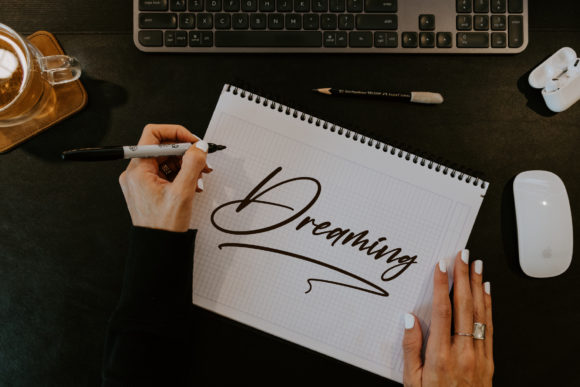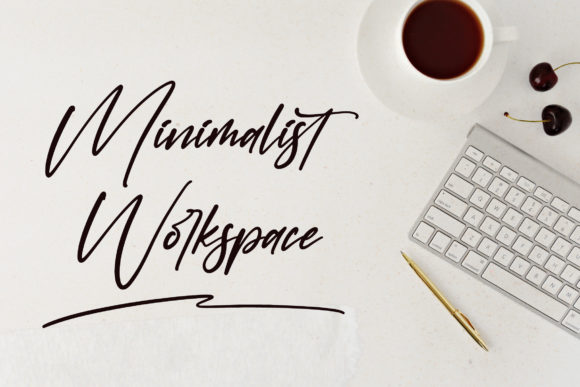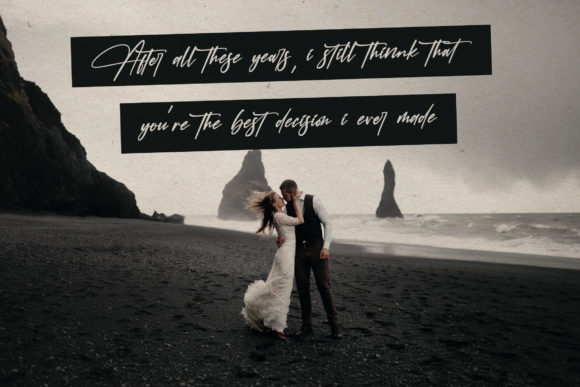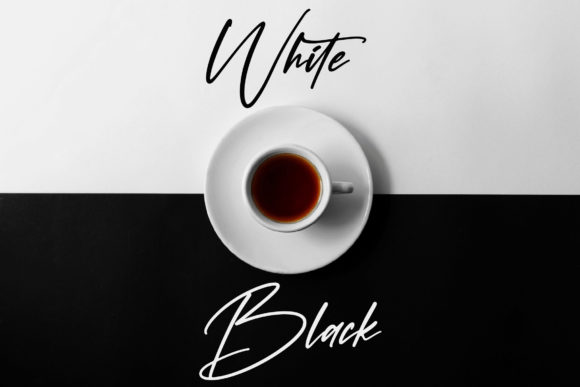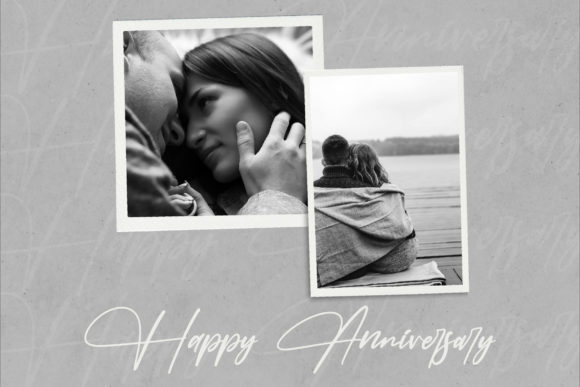
Introducing Falernola Font: Elevate Your Design with Luxury and Elegance
Are you looking for a font that exudes luxury, sophistication, and elegance? Look no further than Falernola Font. This stunning script font is designed to add a touch of high-end style to any design project, making it perfect for crafters, designers, and anyone looking to create something truly special.
What is Falernola Font?
Falernola Font is a thin lettered and graceful script font that is sure to impress. Its delicate lines and curves create a sense of movement and fluidity, making it perfect for a wide range of design applications, from branding and packaging to wedding invitations and digital marketing materials.
Key Features of Falernola Font
- Thin Lettering: Falernola Font features thin, elegant lettering that is perfect for creating sophisticated and luxurious designs.
- Graceful Script: The font’s script style is both flowing and refined, making it ideal for adding a touch of elegance to any design.
- PUA Encoded: Falernola Font is PUA (Private Use Area) encoded, which means that you can access all of the amazing glyphs and ligatures with ease. This makes it simple to create complex and beautiful designs without requiring extensive font knowledge.
Benefits of Using Falernola Font
So why choose Falernola Font for your next design project? Here are just a few benefits of using this stunning script font:
- Luxury and Sophistication: Falernola Font is designed to add a touch of luxury and sophistication to any design, making it perfect for high-end branding, packaging, and marketing materials.
- Versatility: The font’s thin lettering and script style make it versatile and suitable for a wide range of design applications, from digital marketing materials to print materials like brochures and business cards.
- Easy to Use: Falernola Font is PUA encoded, making it easy to access all of the glyphs and ligatures, even for designers with limited font knowledge.
Who Can Benefit from Falernola Font?
Falernola Font is perfect for a wide range of designers and crafters, including:
- Graphic Designers: Whether you’re working on branding, packaging, or marketing materials, Falernola Font is a great choice for adding a touch of luxury and sophistication to your designs.
- Wedding and Event Planners: Falernola Font is perfect for creating beautiful wedding invitations, event programs, and other stationery.
- Crafters and Small Business Owners: If you’re looking for a font that will help your products or brand stand out, Falernola Font is a great choice.
Tips for Using Falernola Font
Here are a few tips for getting the most out of Falernola Font:
- Pair with Bold Fonts: Falernola Font pairs beautifully with bold fonts, creating a striking contrast that’s perfect for headlines and titles.
- Use for Headlines and Titles: The font’s elegant script style makes it perfect for headlines and titles, adding a touch of luxury and sophistication to any design.
- Experiment with Colors: Falernola Font looks great in a range of colors, from metallic gold and silver to rich jewel tones.
In conclusion, Falernola Font is a stunning script font that is sure to add a touch of luxury and sophistication to any design project. With its thin lettering, graceful script style, and PUA encoding, it’s perfect for a wide range of design applications, from branding and packaging to wedding invitations and digital marketing materials. Whether you’re a graphic designer, wedding planner, or small business owner, Falernola Font is a great choice for anyone looking to create beautiful and elegant designs.